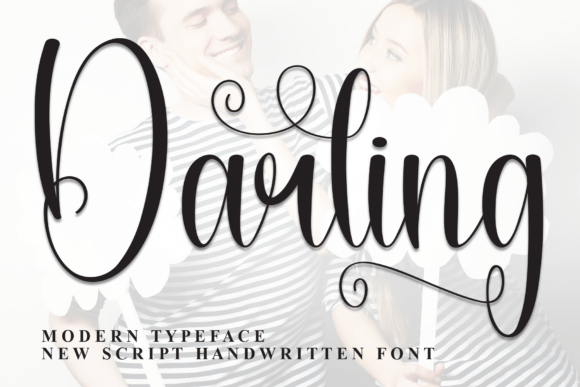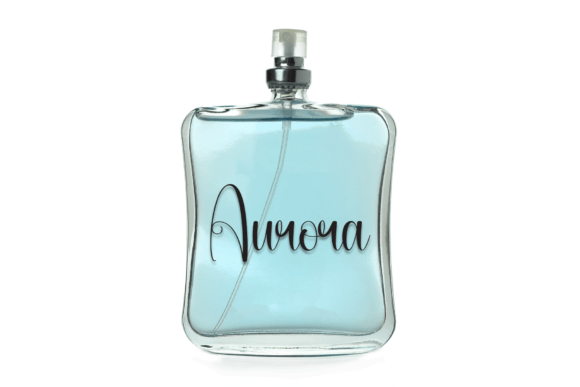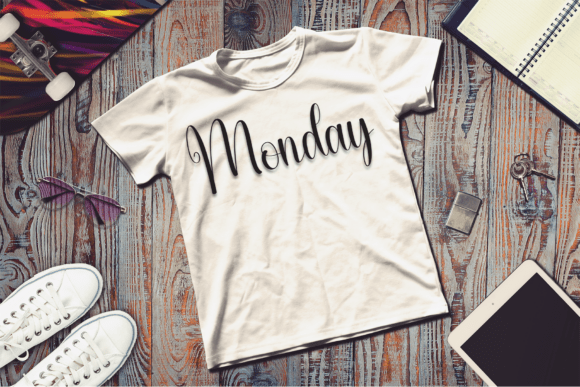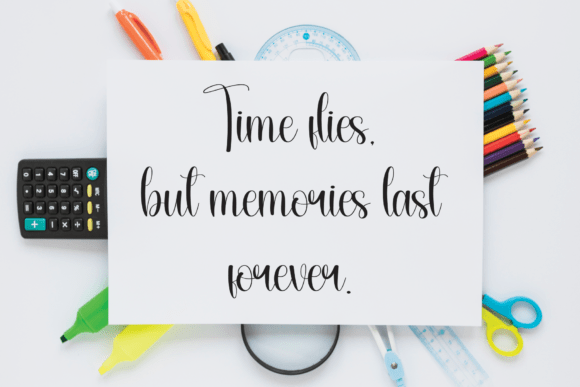
Darling Font
About the Darling Font
We are excited to introduce Darling Font, a must-have typeface for any serious designer. Darling is a trendy handwritten font with a contemporary atmosphere and impeccable form, inspired by timeless classic calligraphy. It will add elegance and class to any of your design projects.
Darling’s elegant, yet approachable style makes it ideal for headlines, short text blocks on invitations or social media graphics, and branding elements requiring a touch of sophisticated handwritten charm. It excels in projects emphasizing a feminine or luxurious feel, such as wedding stationery, beauty product packaging, or boutique branding. Avoid using Darling for lengthy body text or UI elements; its script nature hinders readability in continuous paragraphs.
Pairing Darling with a clean sans-serif like Montserrat or a geometric sans-serif like Futura provides excellent contrast and readability. For a more traditional feel, consider pairing it with a classic serif such as Garamond or Didot. These pairings balance Darling’s handwritten informality with structured typography.
The overall personality of Darling is sophisticated yet friendly; elegant but approachable. It conveys a sense of warmth and personality without sacrificing professionalism.
Darling Font Usage Examples
Darling Font Example